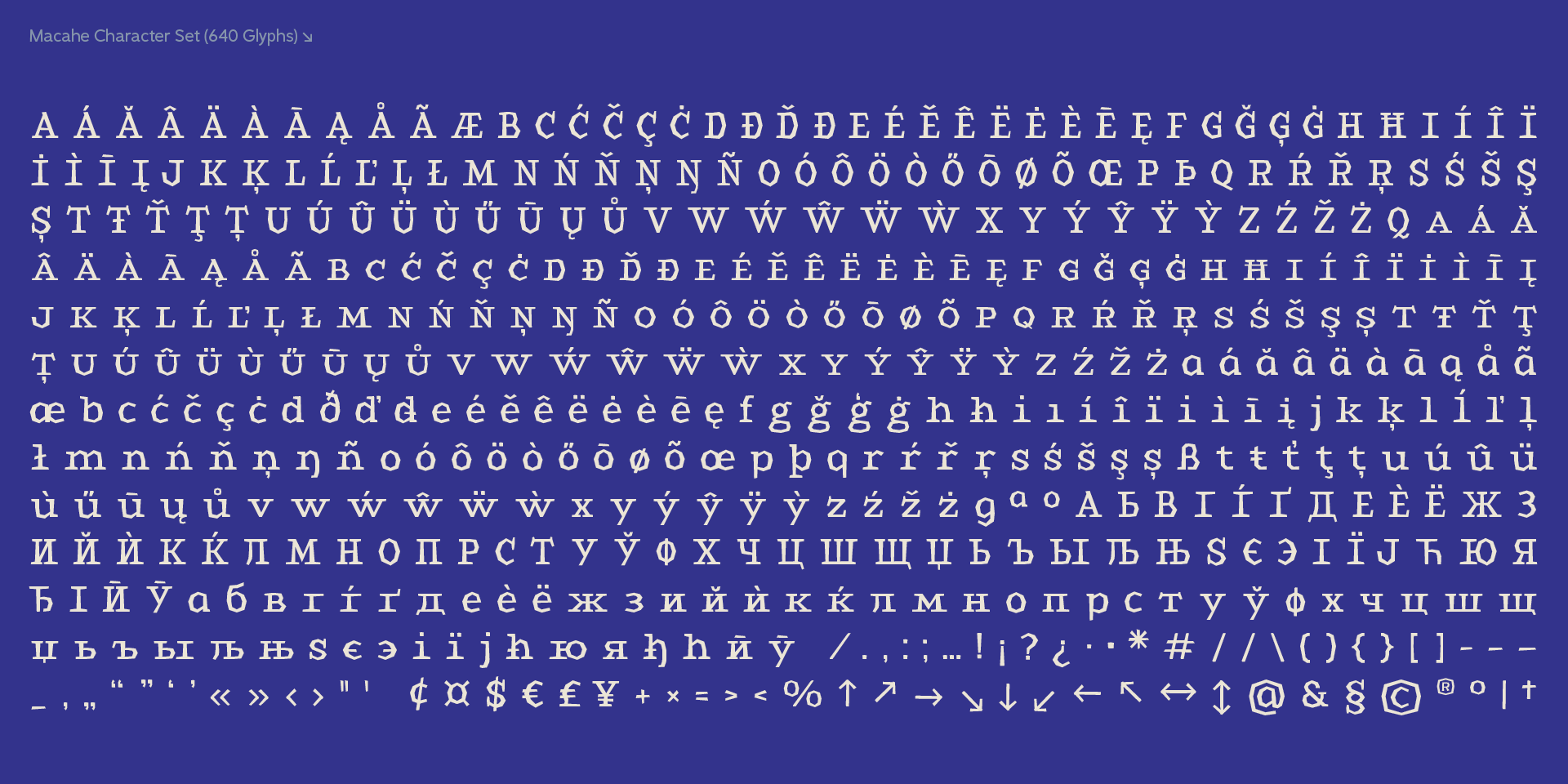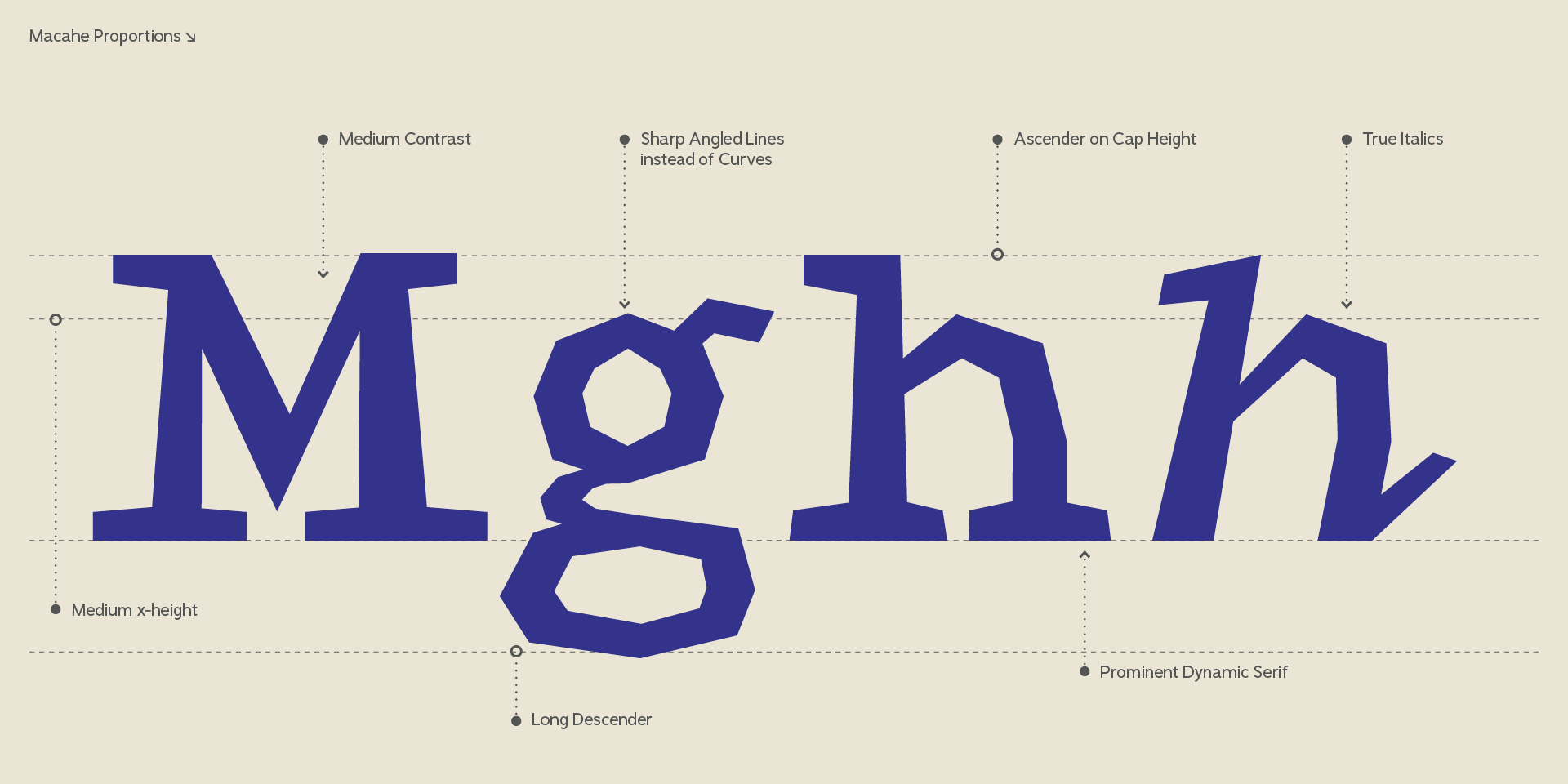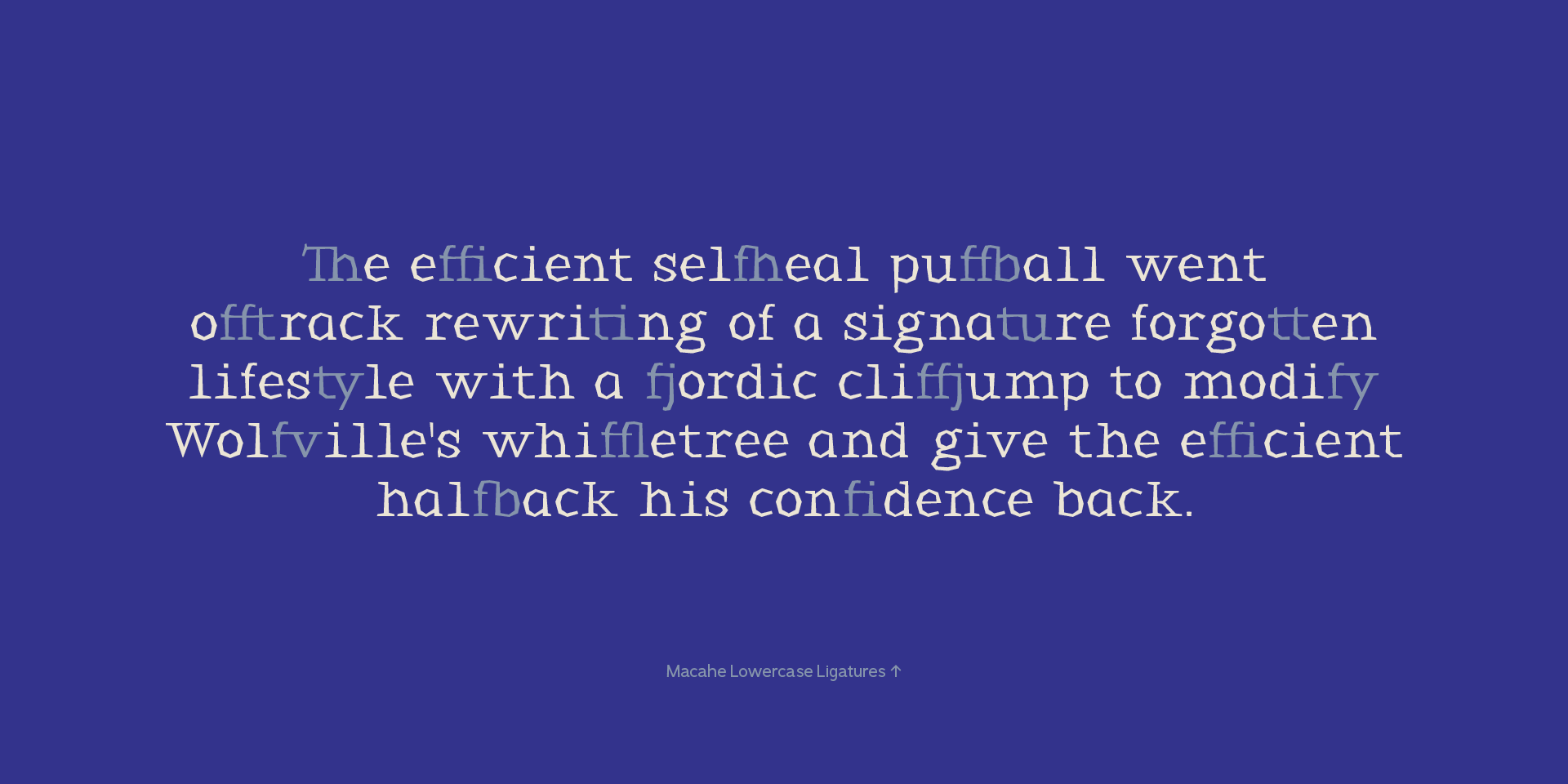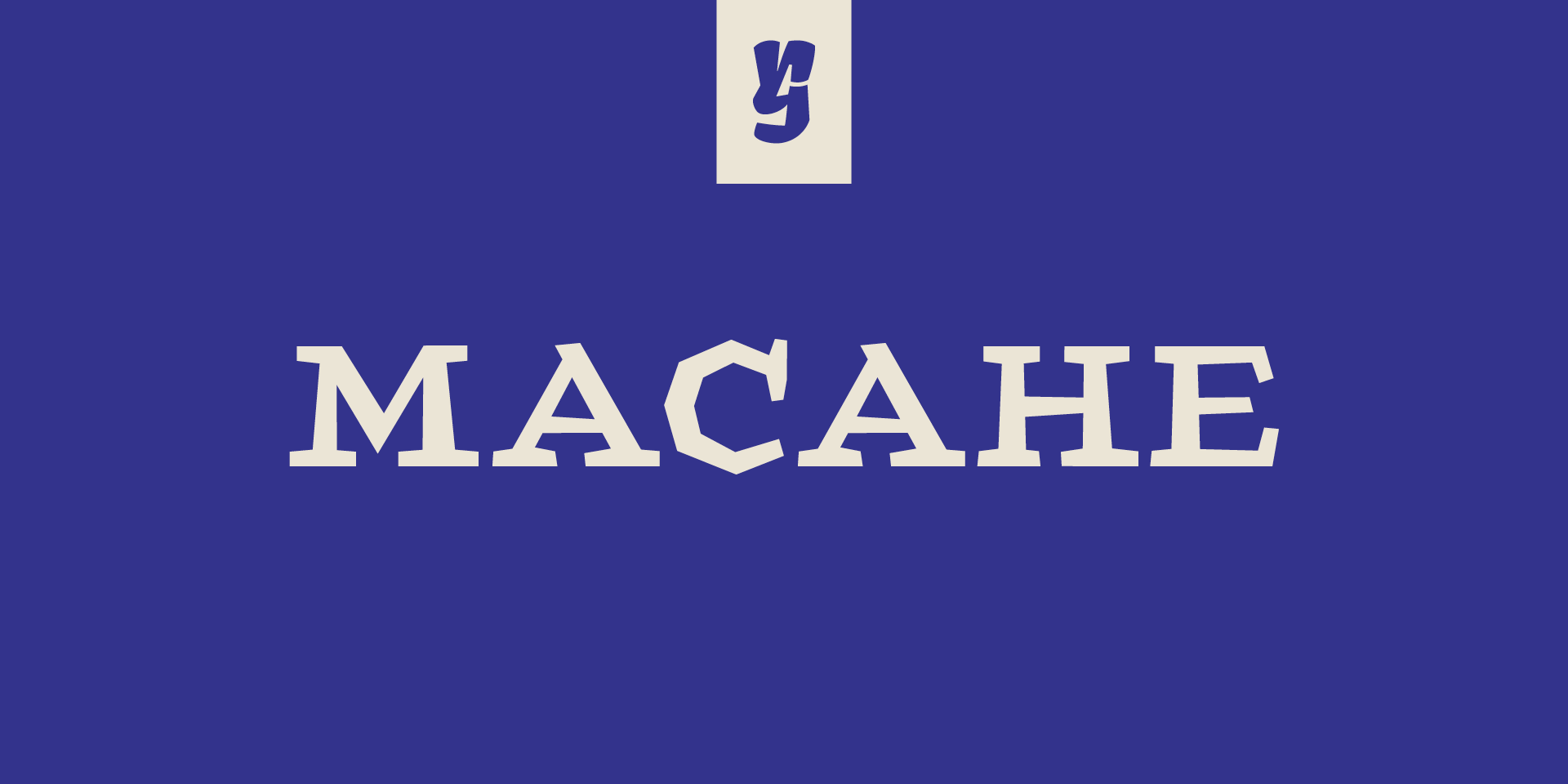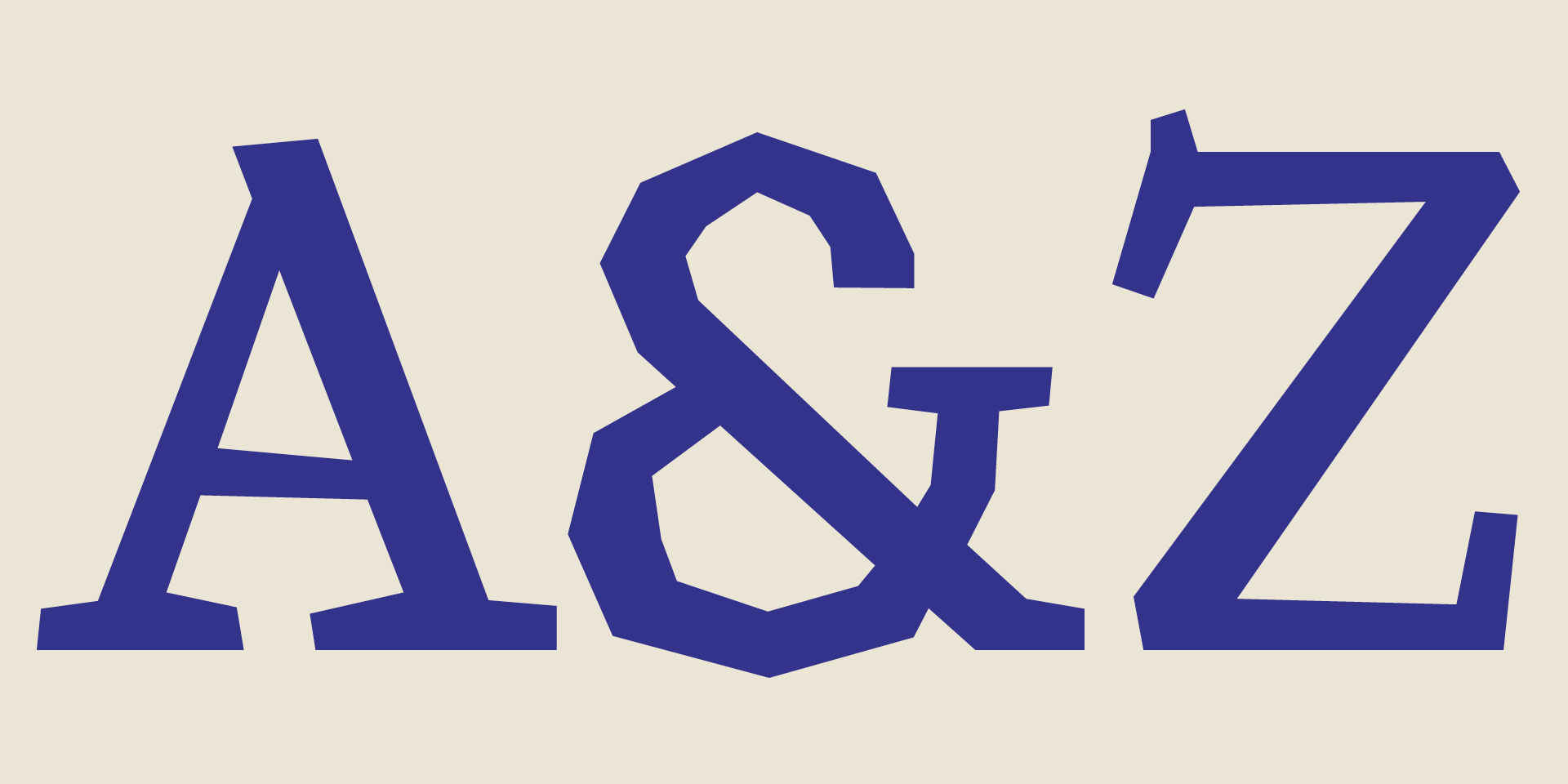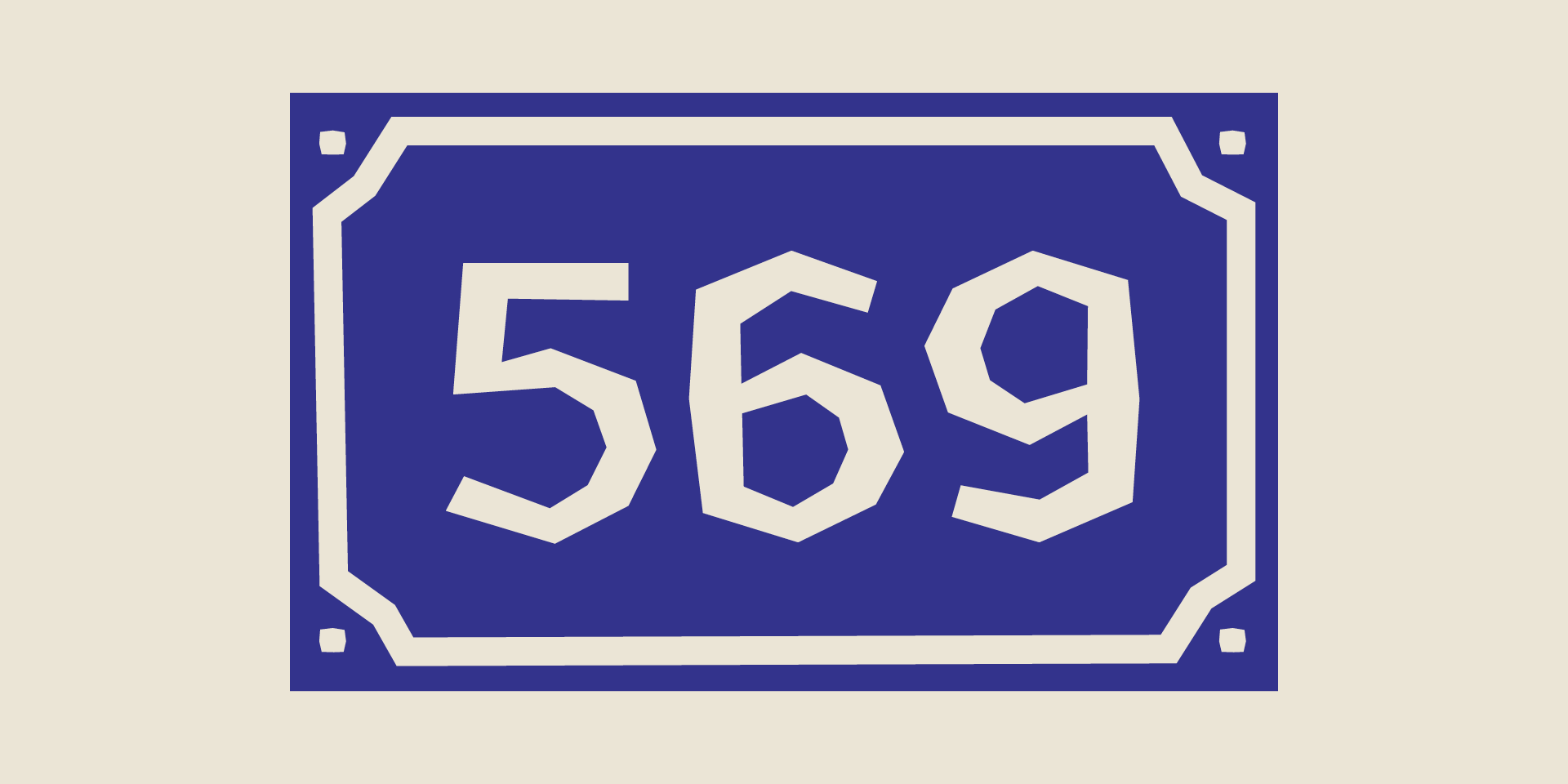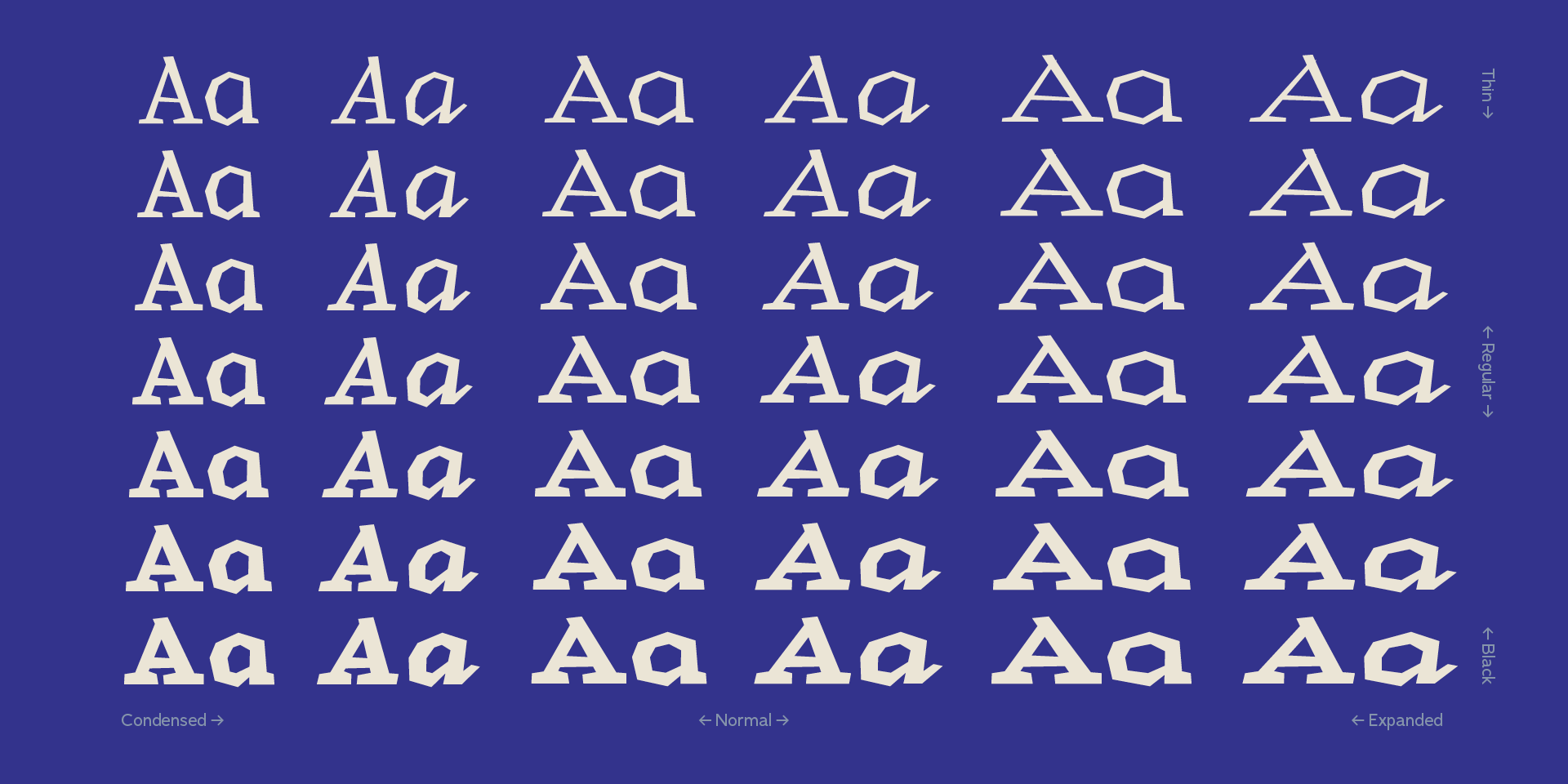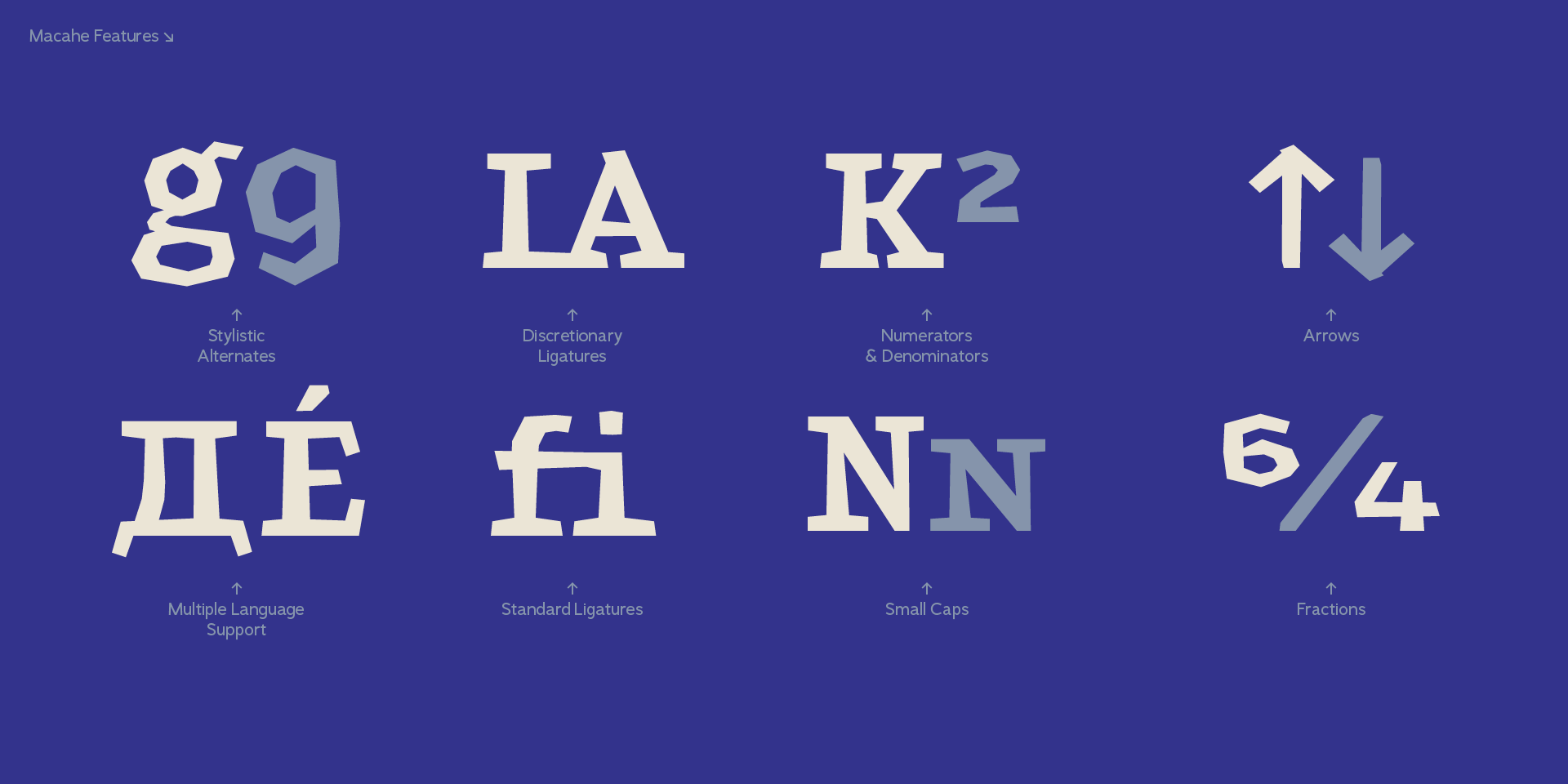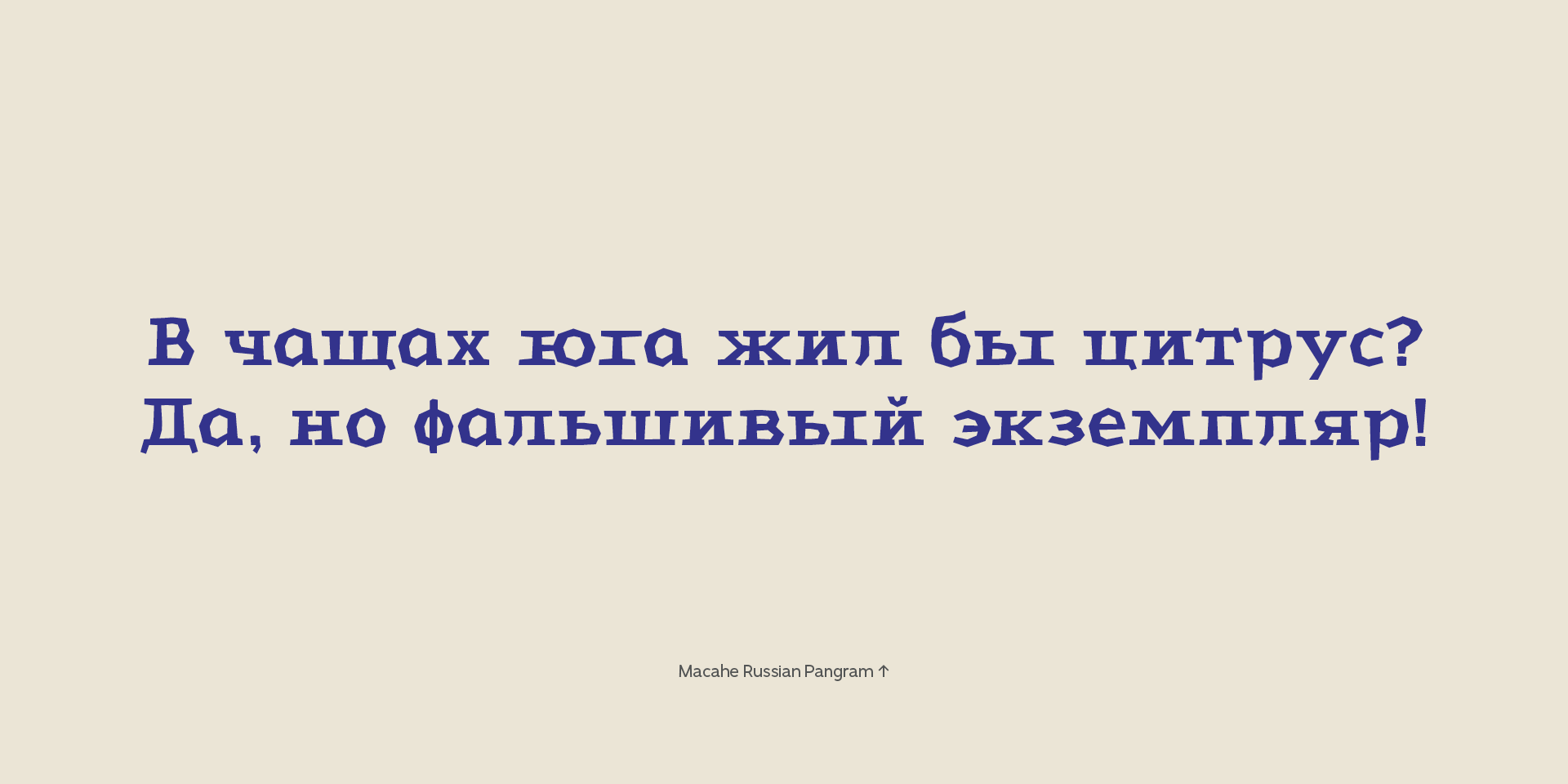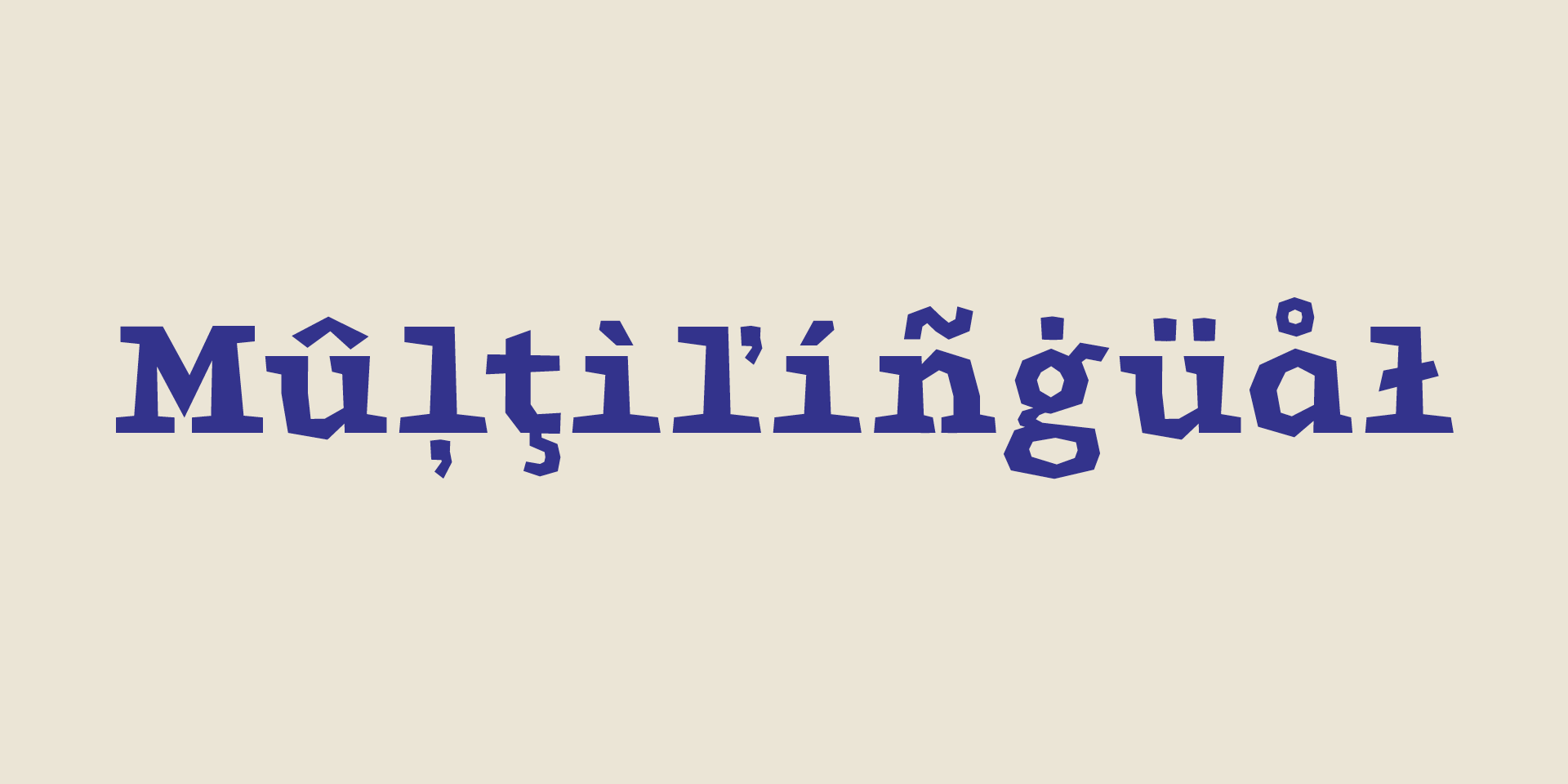
Macahe Typefamily
Macahe is a modern slab serif with dynamic and irregular shapes. It comes with 7 weights, 3 widths and matching italics. The typeface was inspired and name after the city I was born (Macaé-RJ, Brazil), turning the mixture between nature/beach life and the chaotic urban growth into typography. The options (weight, width and true italics) make the font useful both for web and print in multiple occasions; think websites, posters, logos, signage, packaging and etc.
Macahe covers multiple languages, including a wide range of Latin and some Cyrillic languages. It also includes a full range of numerals (included old style figures, numerators, denominators), small caps, standard & discretionary ligatures and stylistic alternates. Those features make Macahe a useful tool for any graphic designer.
Supported Languages: Afrikaans, Albanian, Bosnian, Bulgarian, Catalan, Croatian, Czech, Danish, Dutch, English, Estonian, Finnish, French, German, Hungarian, Icelandic, Italian, Latvian, Lithuanian, Macedonian, Maltese, Norwegian, Polish, Portuguese, Romanian, Russian, Serbian, Slovak, Slovenian, Spanish, Swedish, Turkish, Ukrainian and Zulu
Opentype Features: Small Caps, Standard Ligatures, Discretionary Ligatures, Stylistic Alternates, Numerators and Denominators, Fractions, Oldstyle Figures.